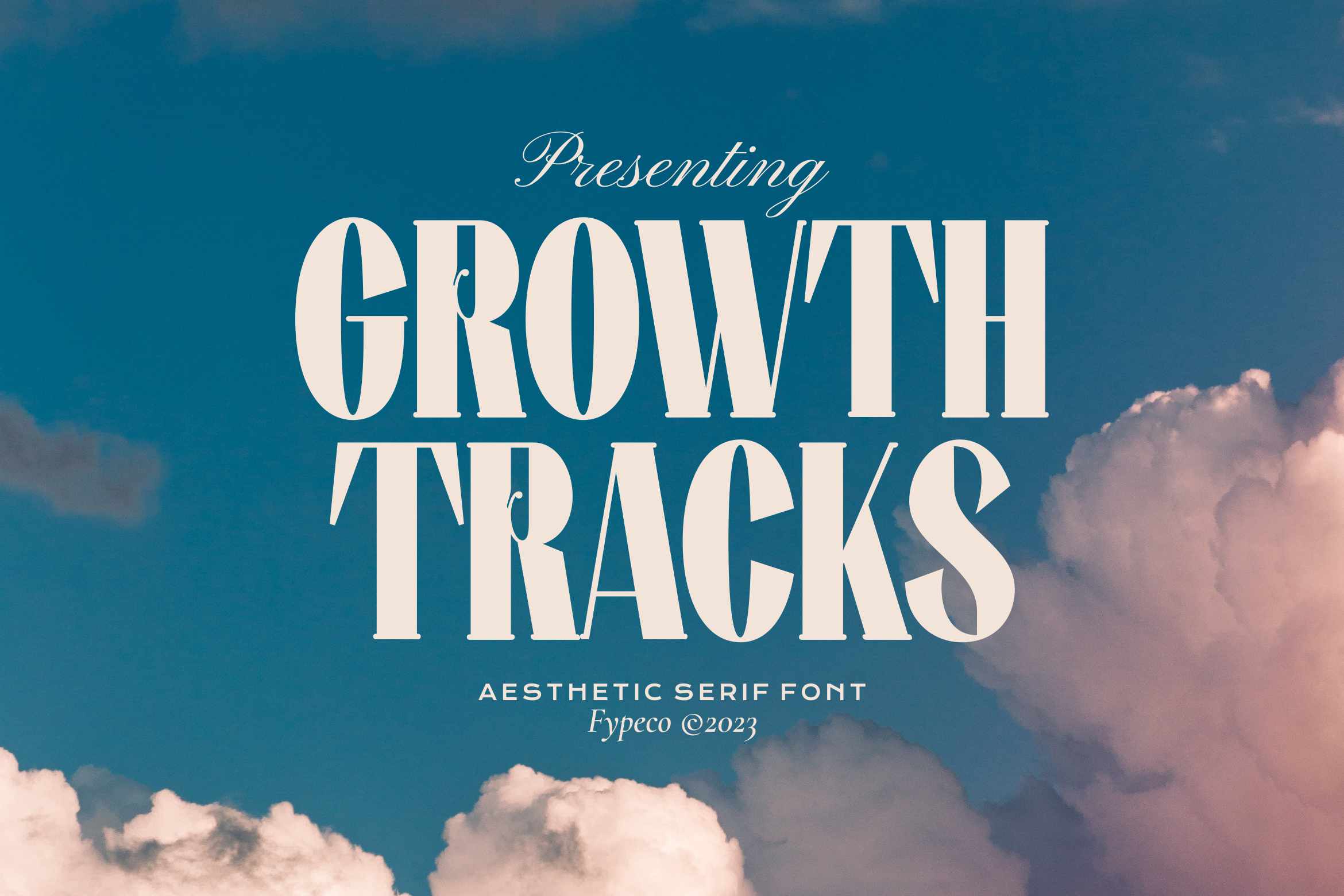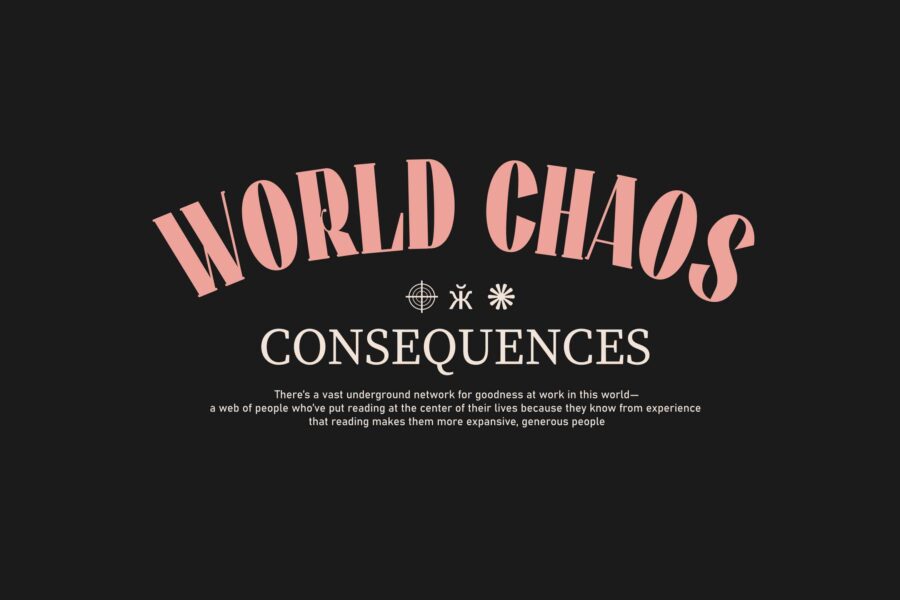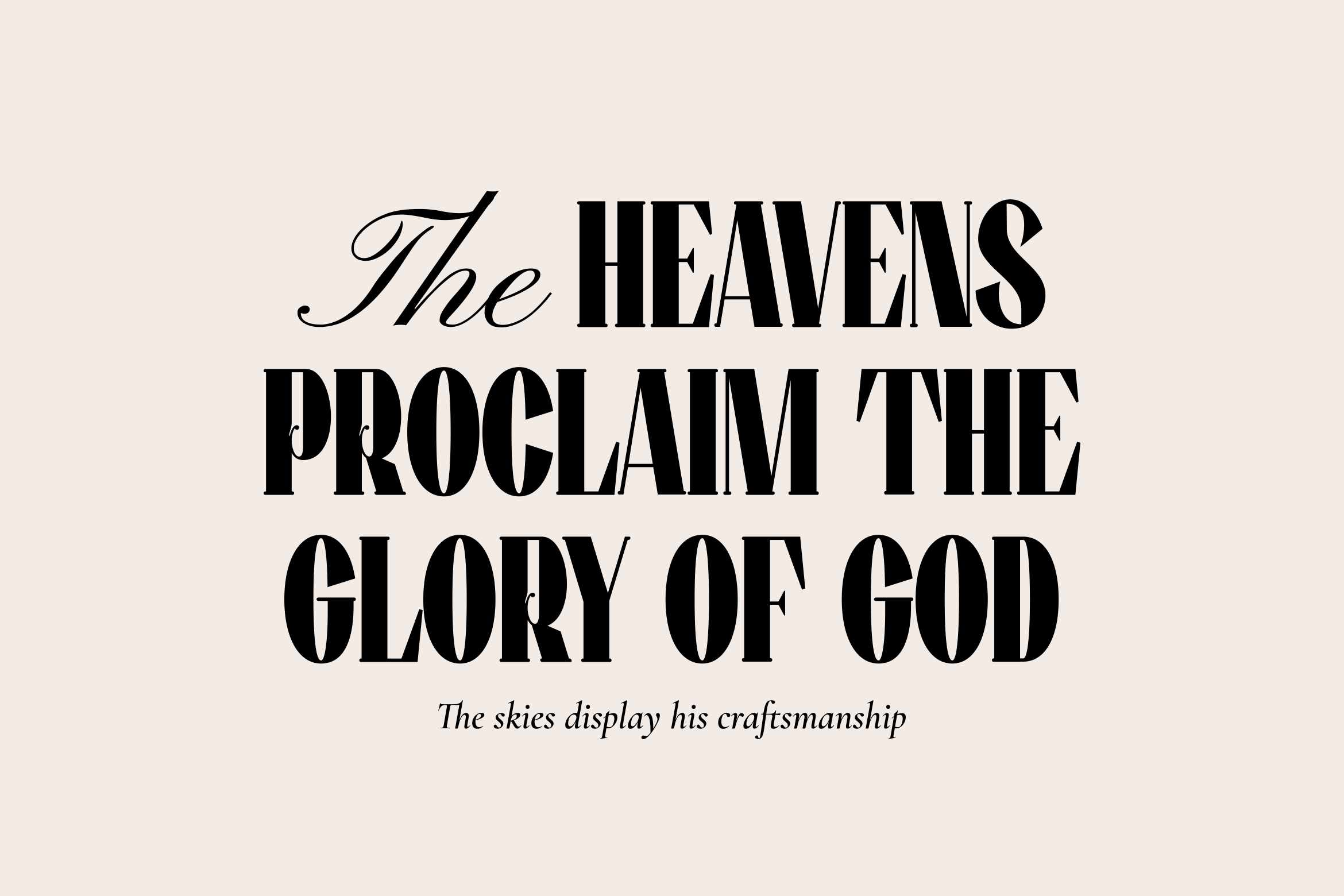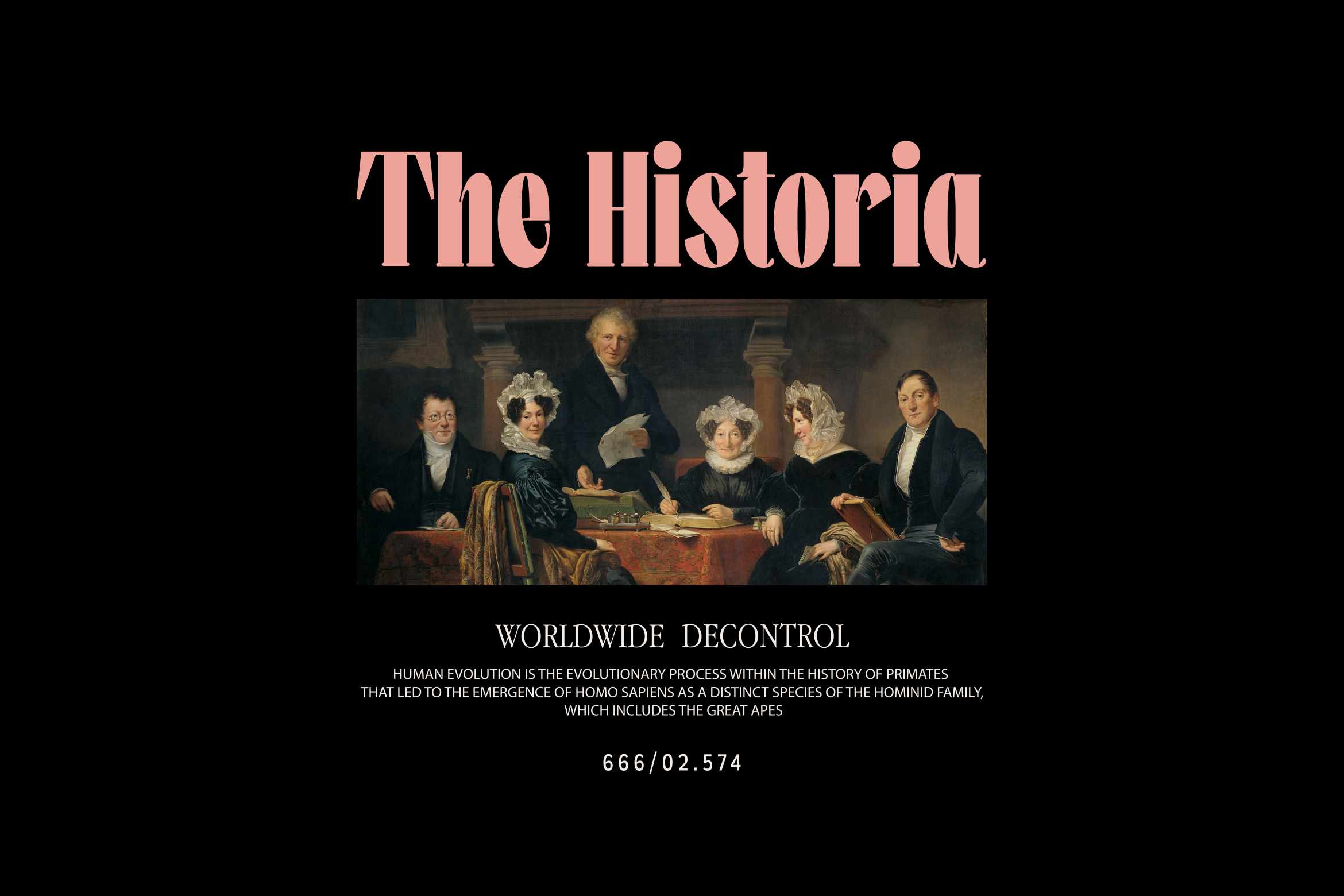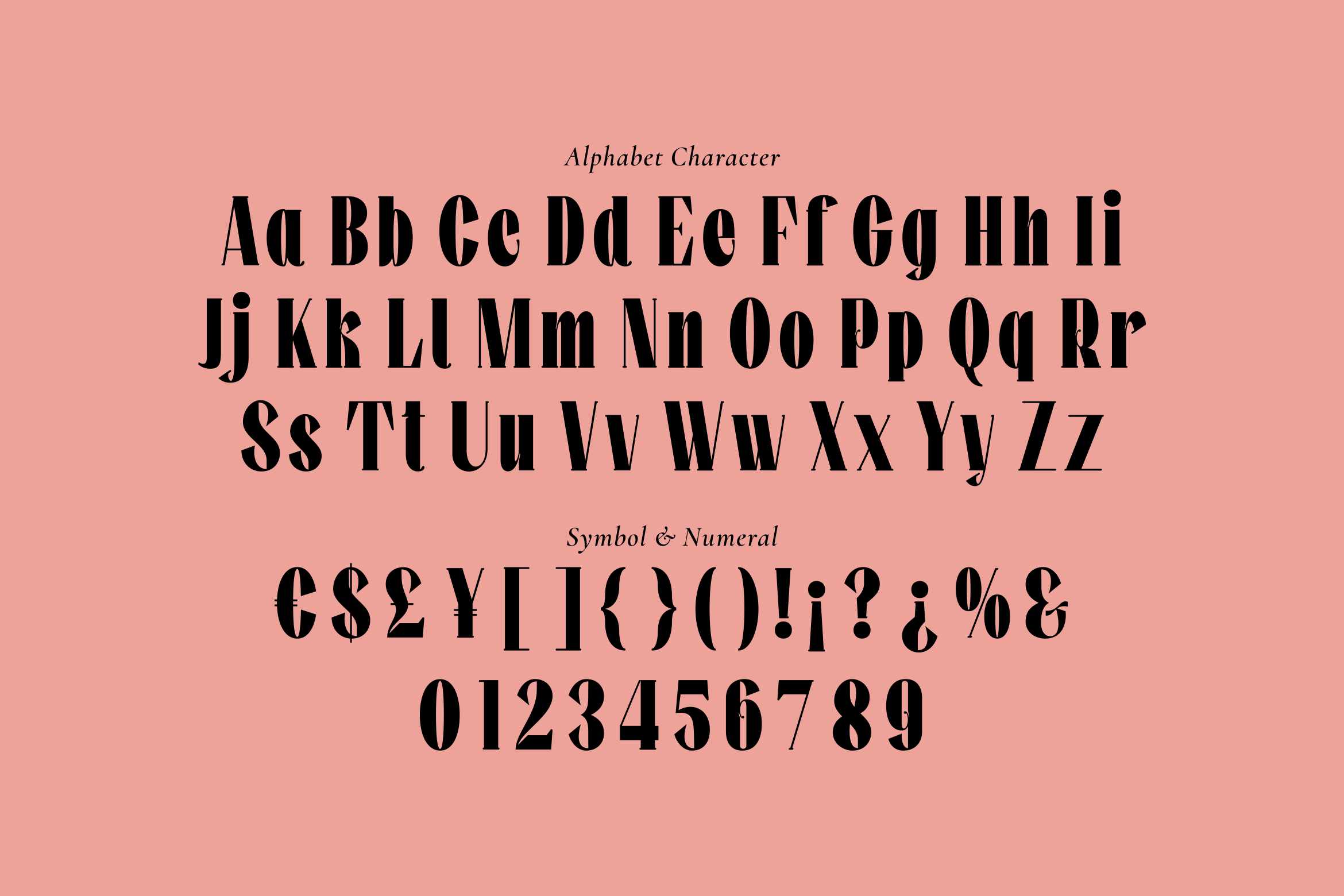
Growth Tracks is a bold and expressive serif display font that brings powerful character and modern aesthetics to your visual compositions. With its high contrast strokes, unique curves, and sharp details, this font is perfect for headlines, posters, branding, and editorial layouts that demand attention. The striking appearance creates an impactful visual hierarchy while still maintaining clarity and balance.
Featuring a complete set of uppercase and lowercase letters, numerals, punctuation, multilingual support, and stylistic alternates, Growth Tracks gives you the freedom to experiment and elevate your typography. Ideal for fashion, lifestyle branding, or inspirational statements, this font captures elegance and boldness in perfect harmony.